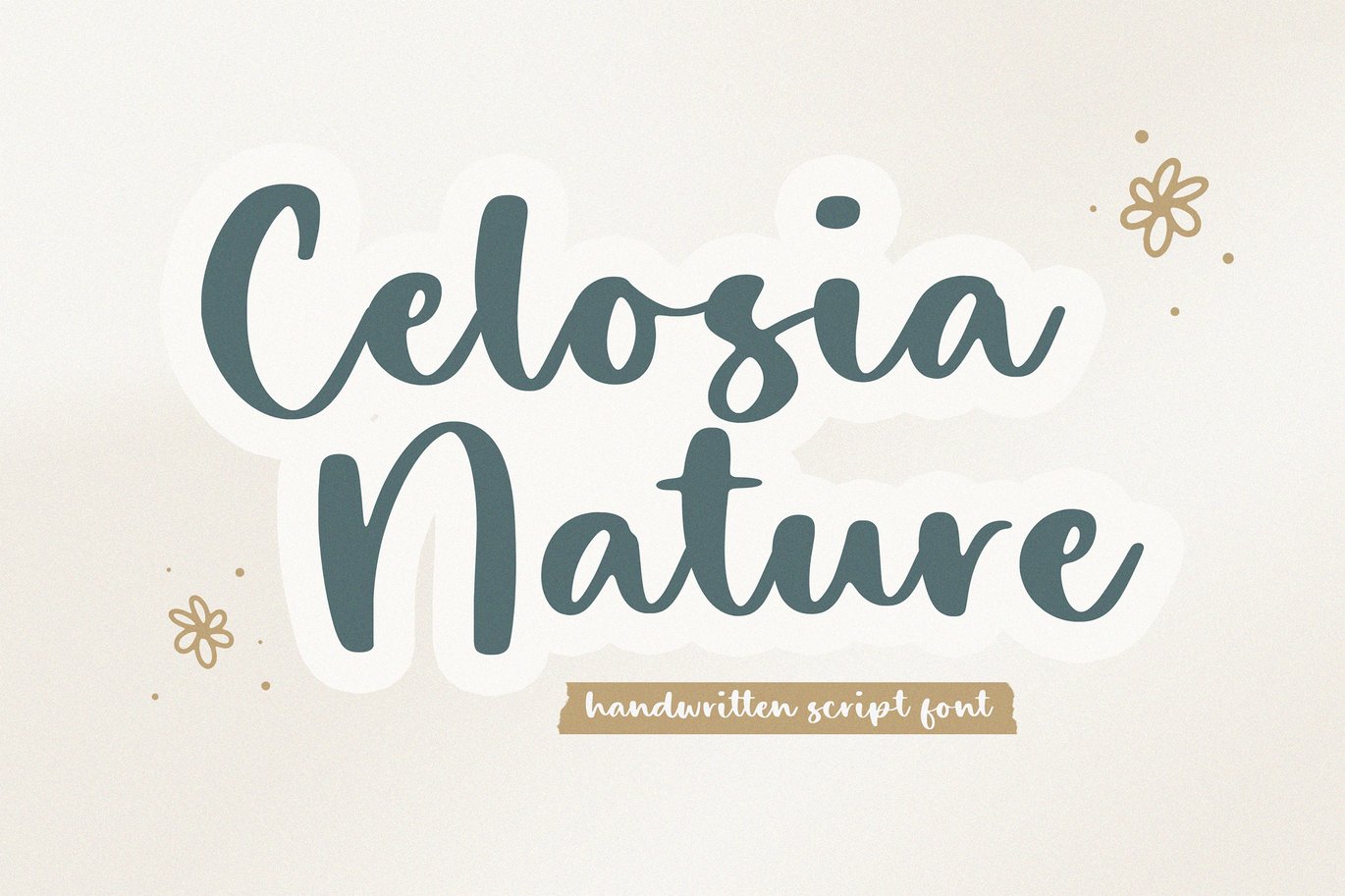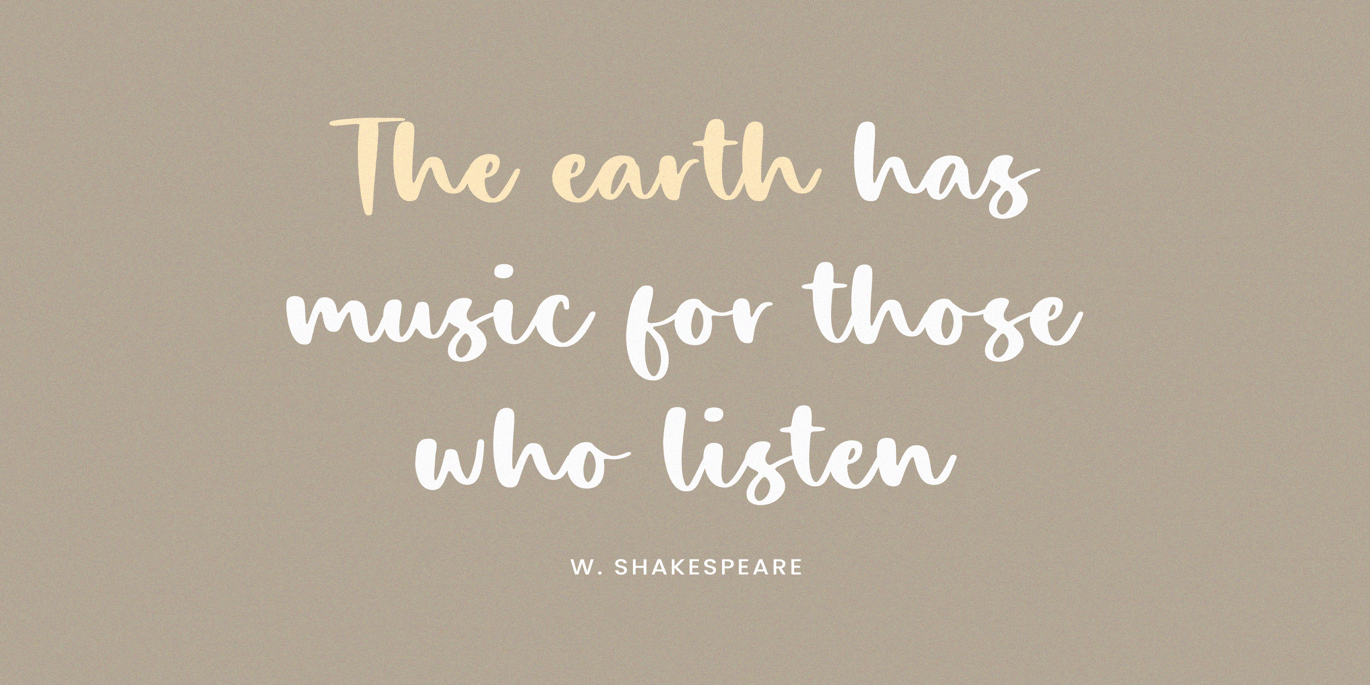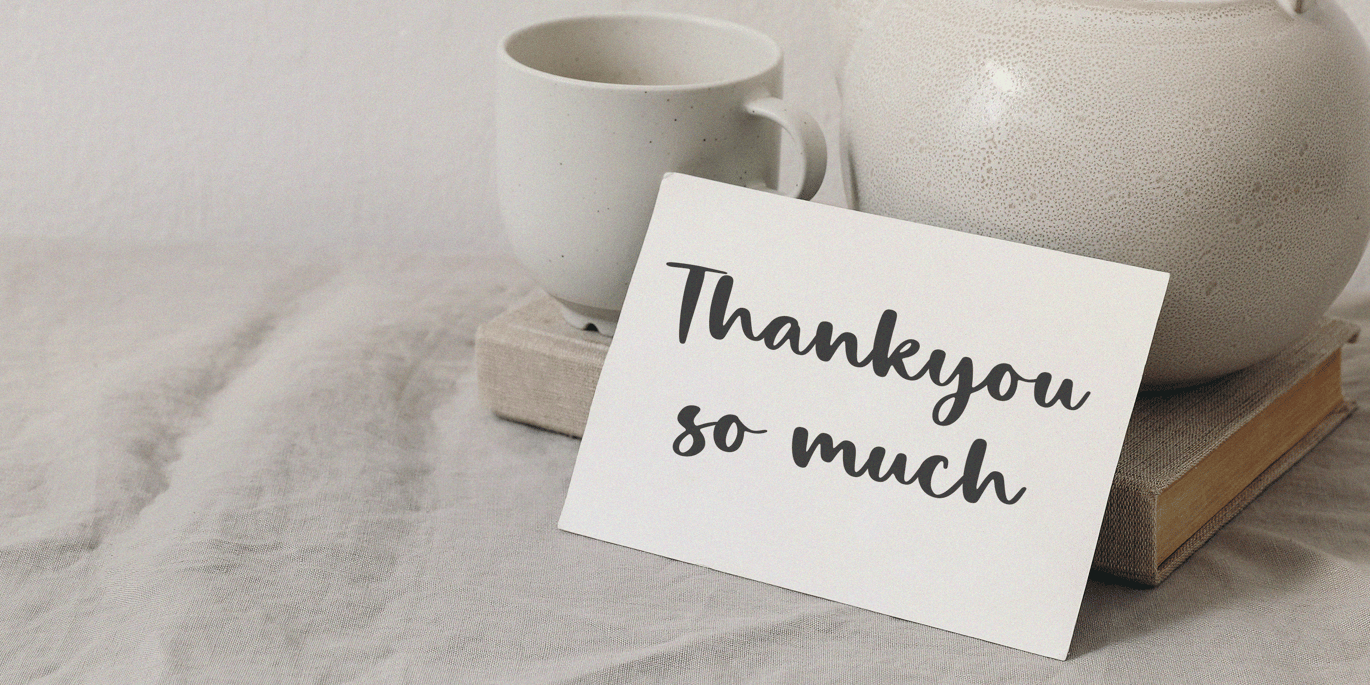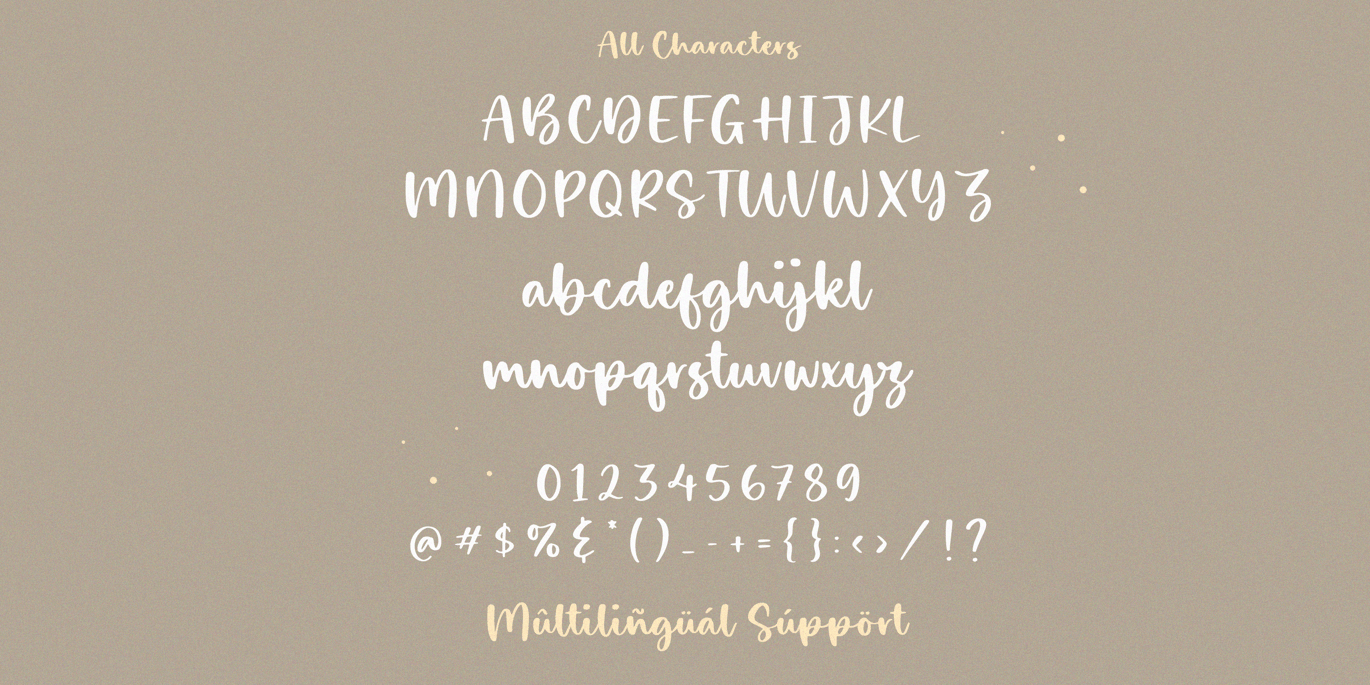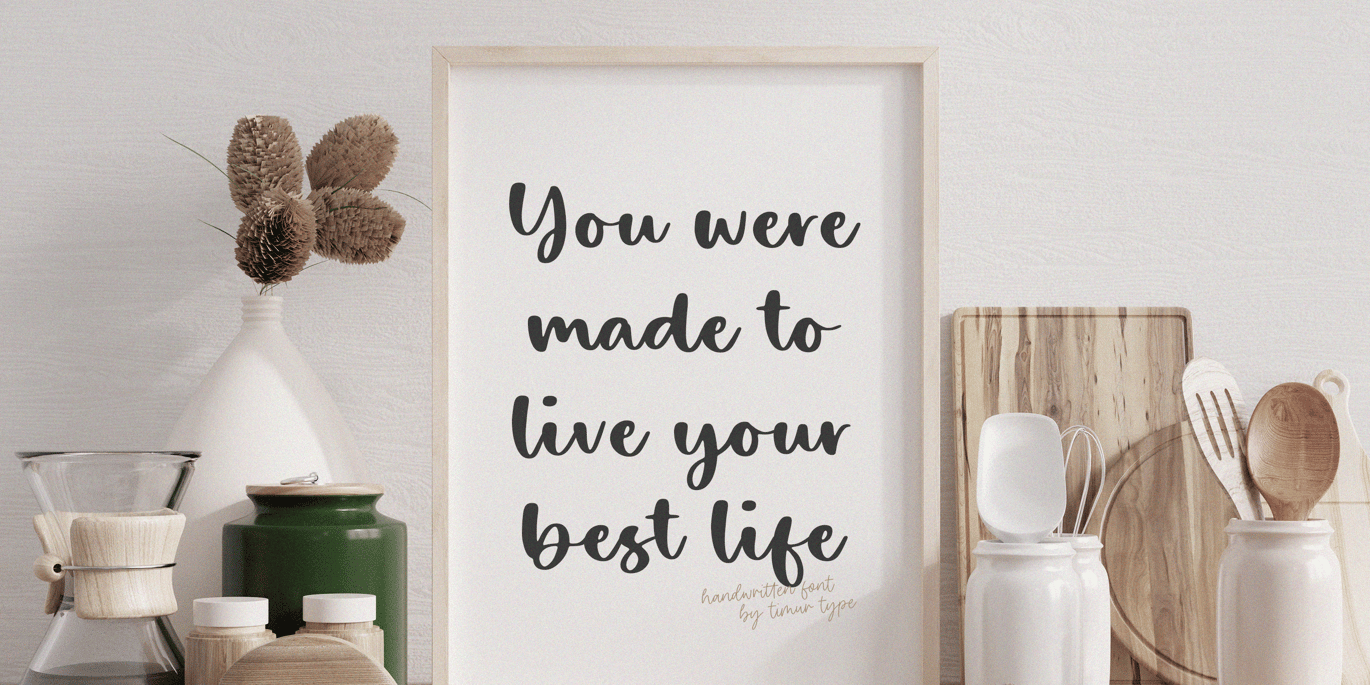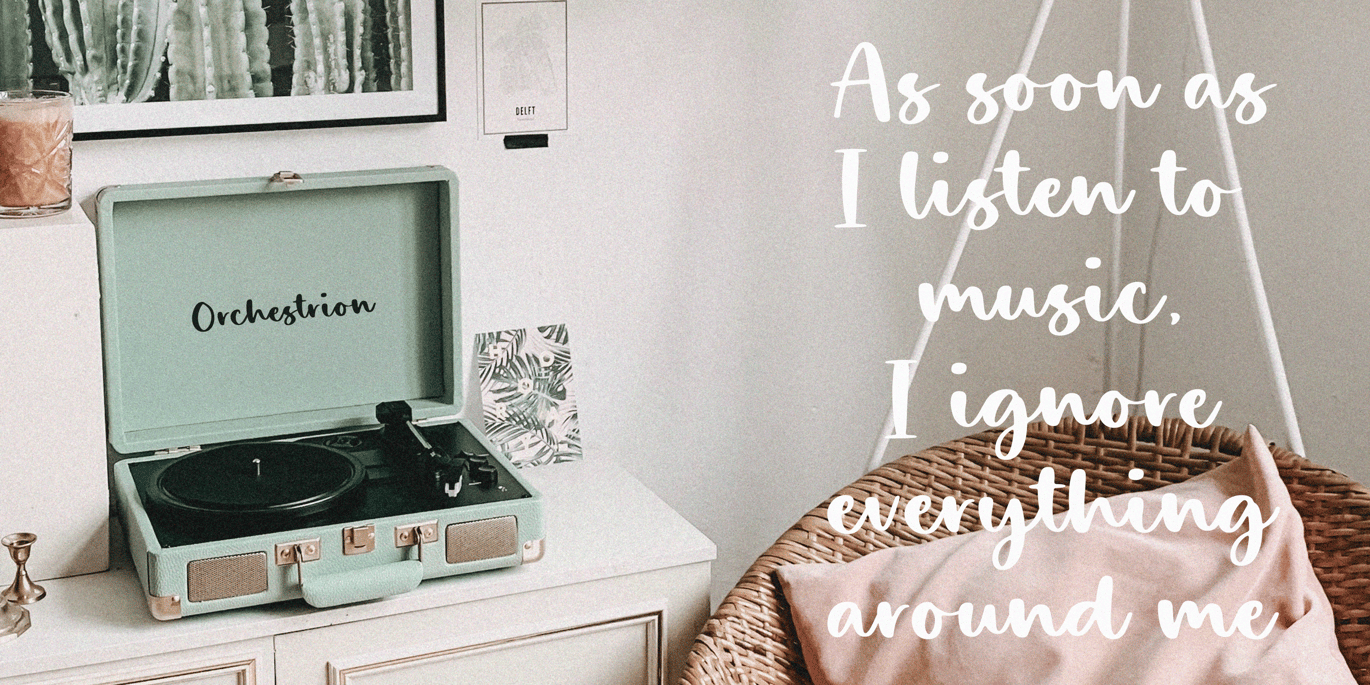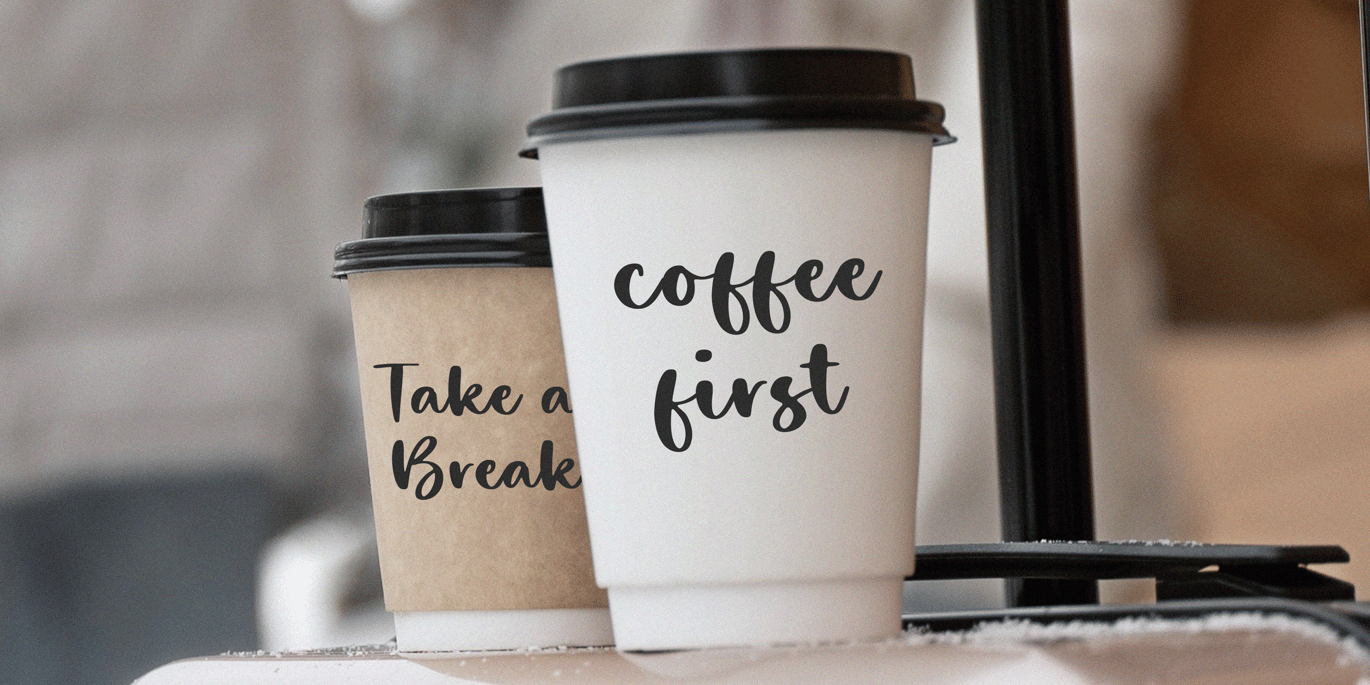
Celosia Nature – Handwritten Font TT
Proudly Present, Celosia Nature
Celosia Nature A Handwritten Font , which was created with great care and specially created for you
Celosia Nature is perfect for product packaging, branding project, megazine, social media, wedding, or just used to express words above the background.
- multilingual support.